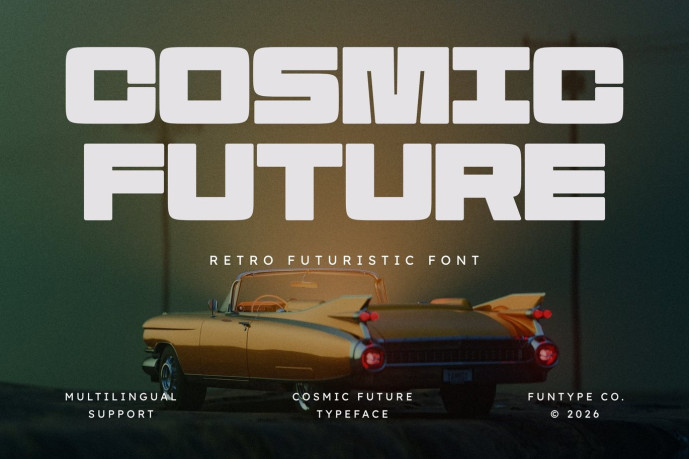
Cosmic Future – Retro Futuristic Display Font
Cosmic Future is a heavy, high-impact, and retro-futuristic display font, meticulously engineered to bring an authoritative structural presence, massive geometric weight, and unique space-age aesthetic to contemporary creative layouts. Featuring an expanded horizontal profile, powerful block structures, and subtle stencil-like cuts, Cosmic Future introduces a premium sci-fi editorial, high-end automotive, and prominent cinematic media identity designed to claim absolute visual focus.
This font family is the ultimate choice for creative directors, digital gaming publishers, and agency brand designers looking to implement a robust, heavyweight typography identity for major text hierarchies. Whether you are developing bold corporate enterprise logotypes, science fiction book layouts, tech-lifestyle branding, cinematic movie title sequences, automotive presentation headers, or prominent digital web banners, Cosmic Future stands out with supreme clarity and structural confidence.
Main Features:
Retro-Futuristic Wide Structure: Optimized with an expanded horizontal footprint for solid, heavy, and high-impact title compositions.
Massive Geometric Weight: Thick block lines with smooth outer rounded curves crafted to secure instant audience attention.
Multilingual Support: Fully loaded and prepared for cross-platform international marketing campaigns.
Premium Sci-Fi Aesthetic: Bold linear strokes balanced with subtle structural gaps, perfect for cutting-edge corporate identities and digital gaming media networks.